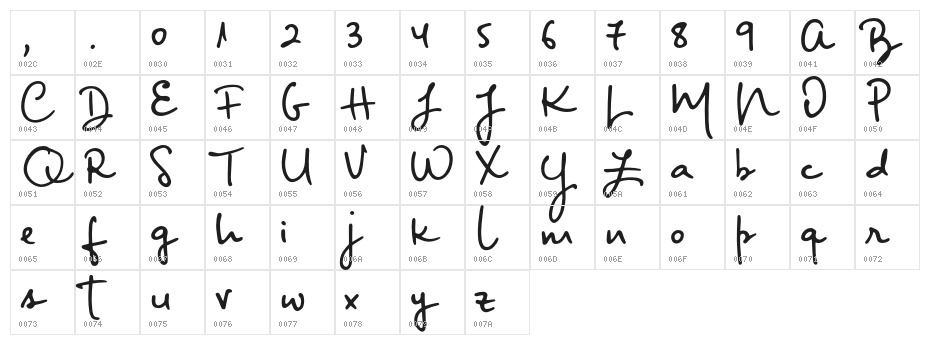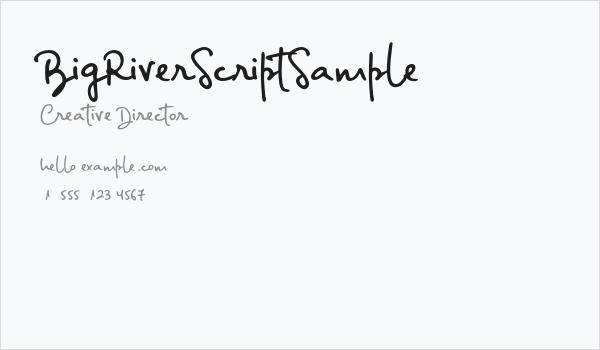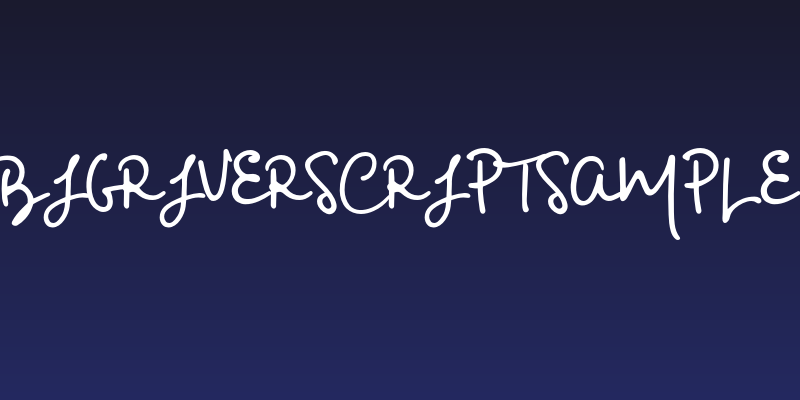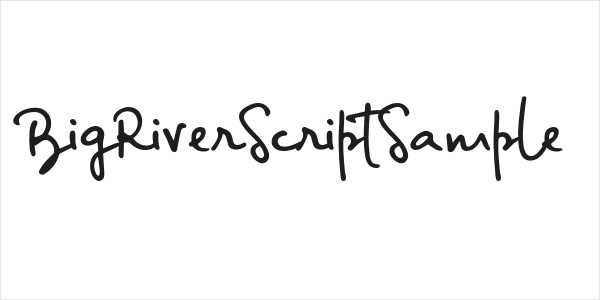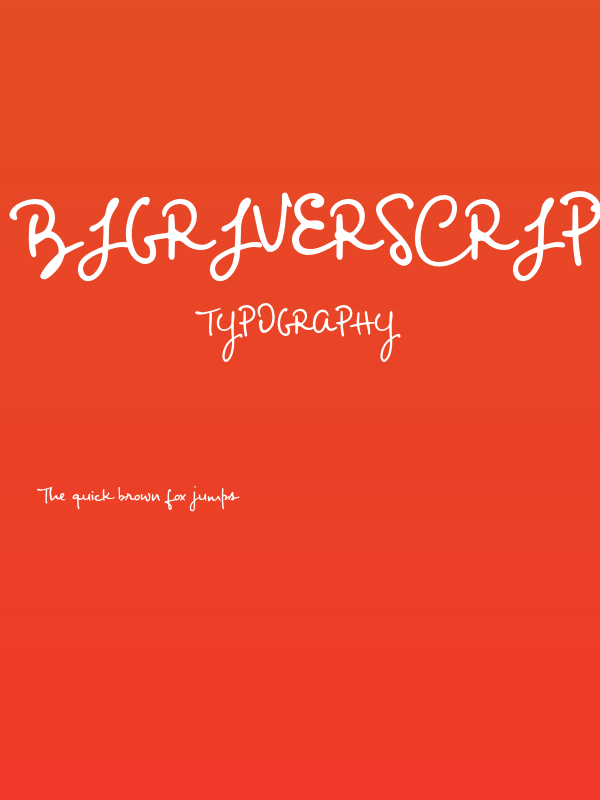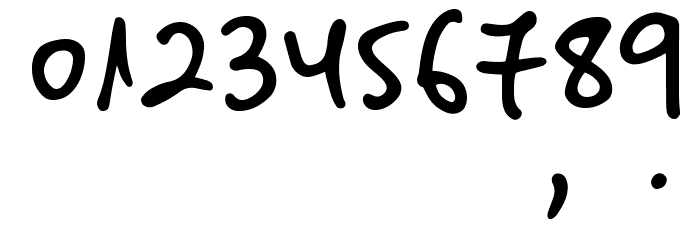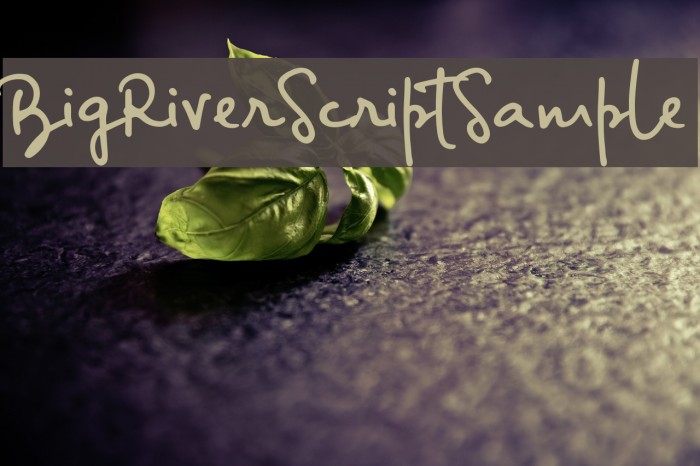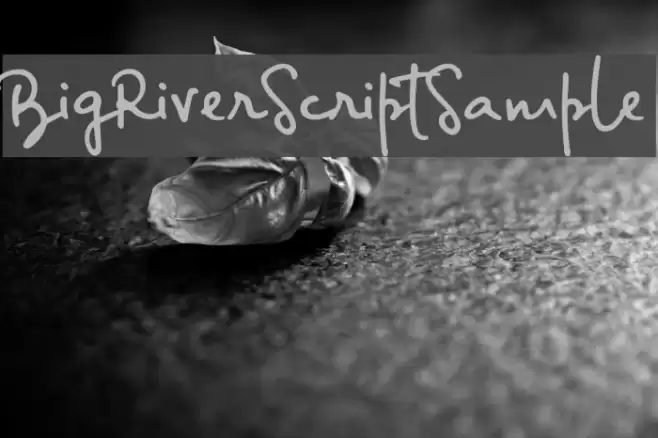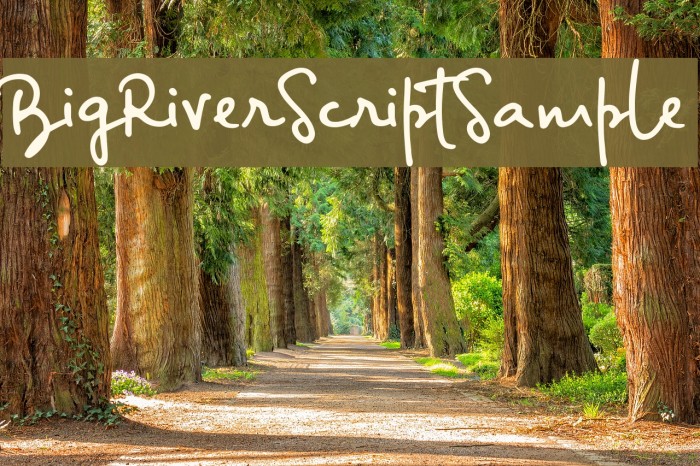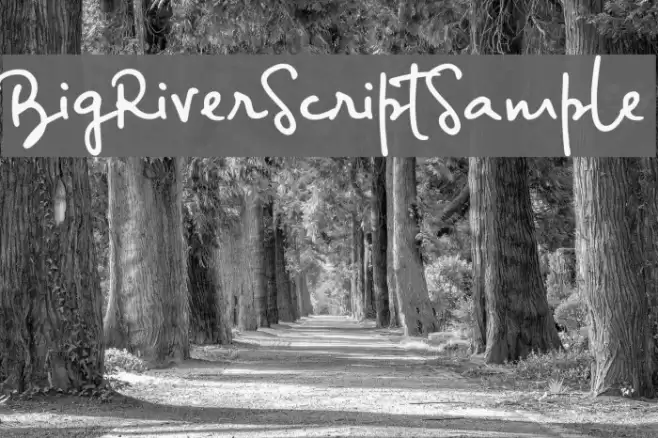
BigRiverScriptSample Font
BigRiverScriptSample Description
This font exudes a lively and dynamic personality with its fluid, cursive strokes that mimic natural handwriting. The uppercase letters are bold and expressive, featuring a playful loop and swirl design that adds a touch of whimsy. The lowercase letters maintain a consistent flow, with smooth connections between characters, enhancing the script's legibility. Numbers are robust and slightly rounded, complementing the overall style. The special characters are crafted with the same attention to detail, ensuring they blend seamlessly with the rest of the typeface. This font is perfect for projects that require a personal, handwritten touch, such as invitations, greeting cards, or branding materials that aim to convey warmth and approachability.
| Proposed Projects | Ideal for invitations, greeting cards, personal branding, and any project needing a warm, personal touch. |